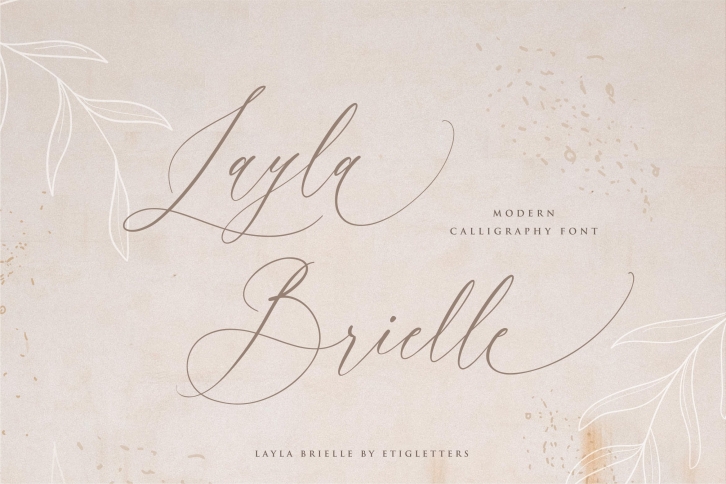
Layla Brielle Calligraphy is a great font that was designed by Etigletters. Imagine the amount of combinations you can create using this font! The archive is 10.21 MB and it was released on June 25, 2020. Layla Brielle Calligraphy looks beautiful on wedding invitations, greeting cards, logos, posters, labels, t-shirt designs, logos, business cards and is perfect for use in ink or watercolor works, fashion, magazines, packaging and food menus, children's books and more!